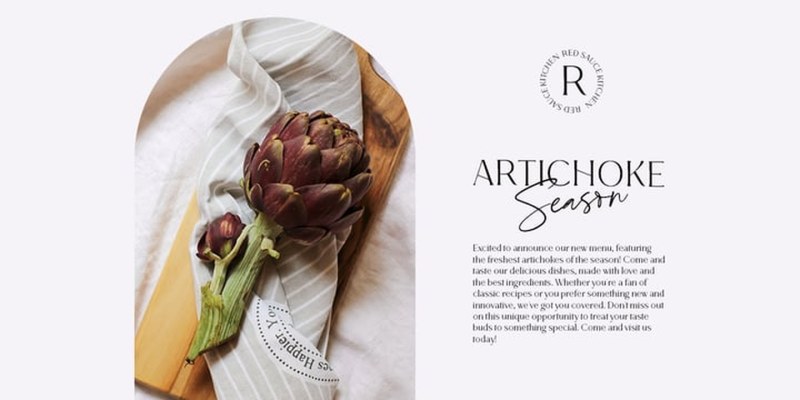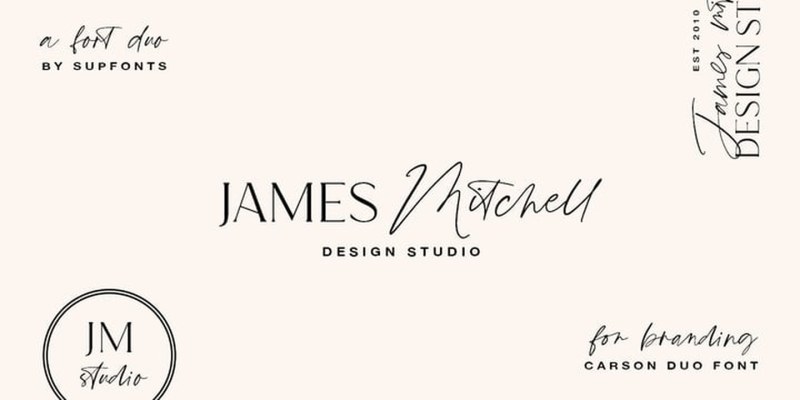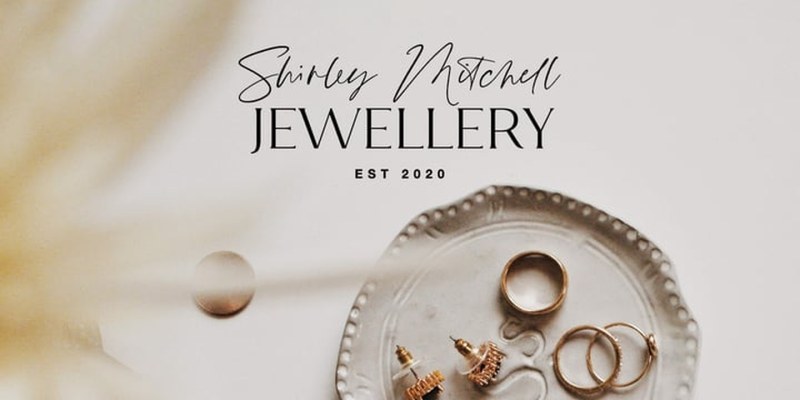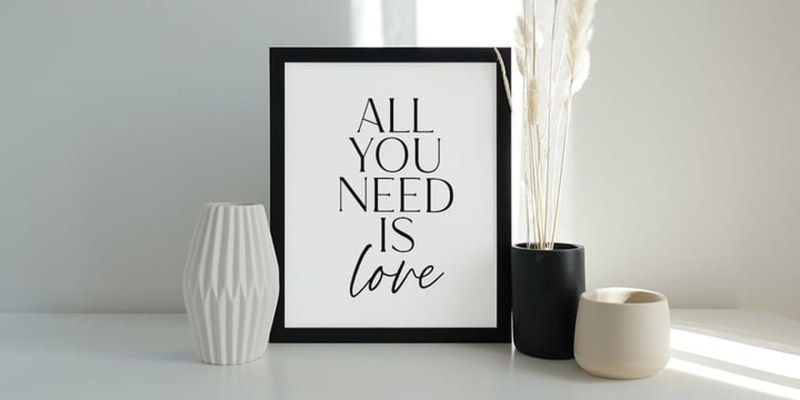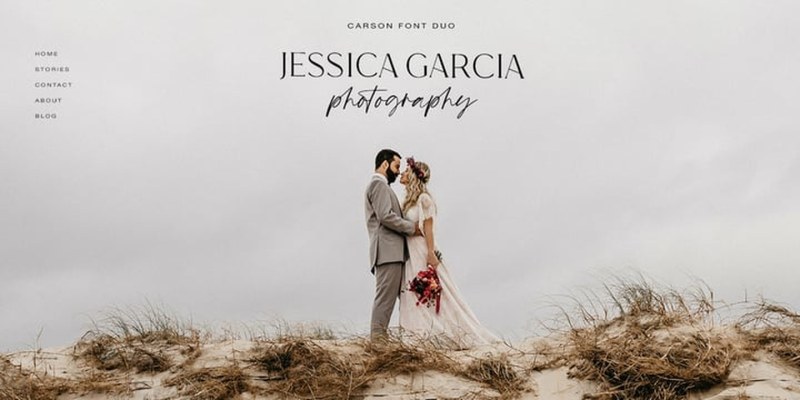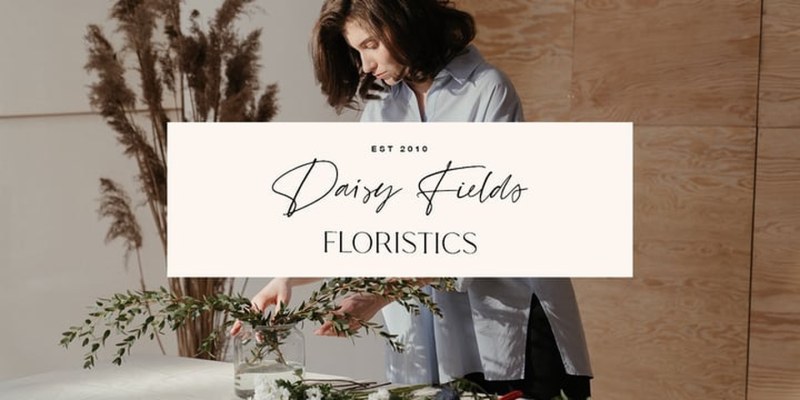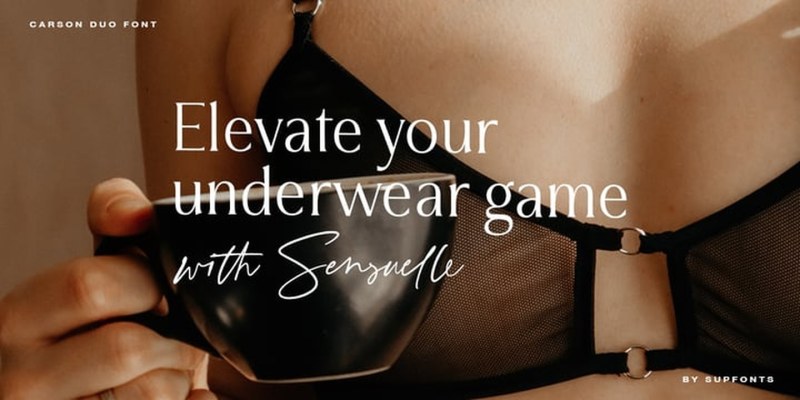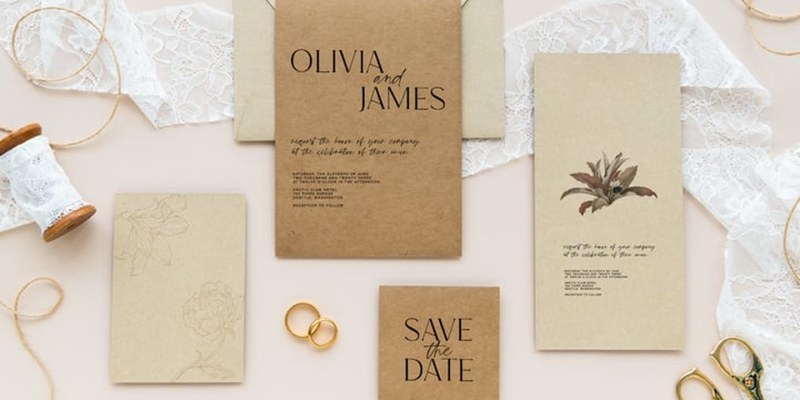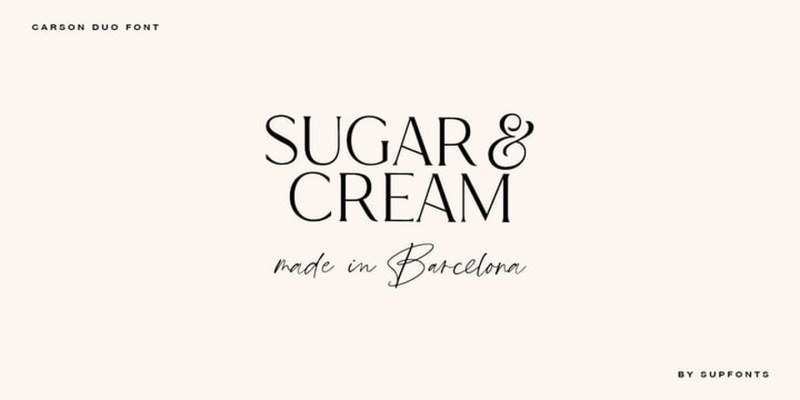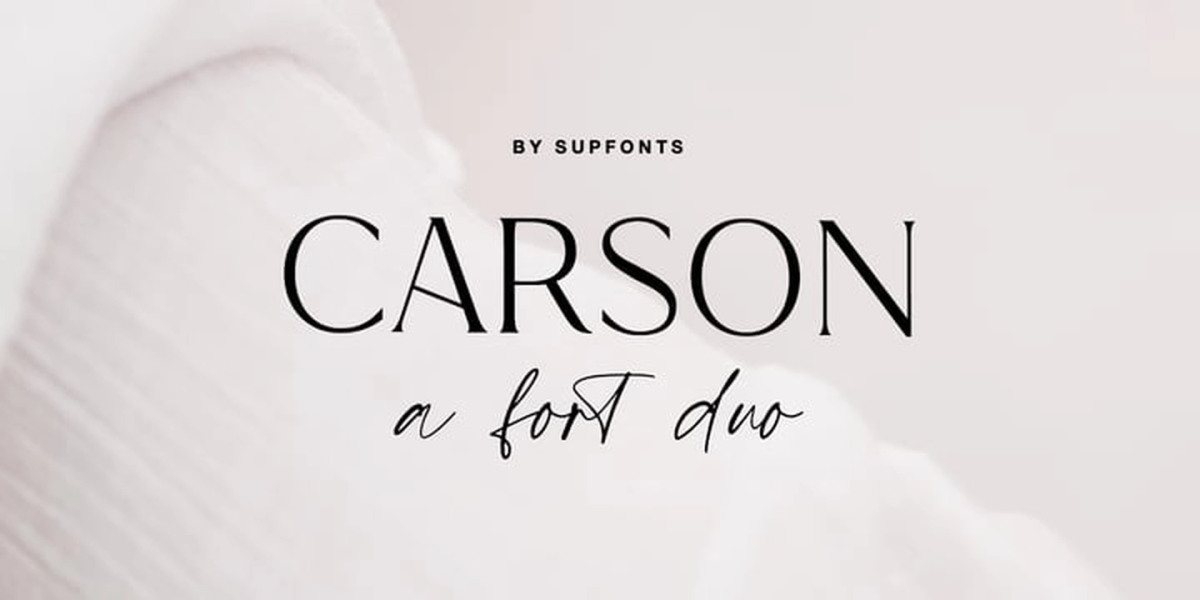
Carson Font Family
Carson Font Duo is a combination of a sophisticated serif typeface and a relaxed handwritten script. It has a contemporary and uncomplicated design that adds an elegant…
Carson Font Duo is a combination of a sophisticated serif typeface and a relaxed handwritten script. It has a contemporary and uncomplicated design that adds an elegant and tidy touch to various projects such as websites, logos, branding, social media quotes, wedding stationery, and more.
Where Carson Font Family works best
Carson Font Family gives long-form text a classic, trustworthy rhythm — ideal for magazine spreads, annual reports and book interiors.
Pair Carson Font Family with generous letter-spacing for wordmarks in fashion, hospitality, wine and jewellery branding.
Use Carson Font Family for slide titles in Keynote, PowerPoint or Google Slides to add authority without looking dated.
What is Carson Font Family good for?
Carson Font Family is a Serif Fonts typeface tagged Branding, Elegant, Handwritten, Modern. It works well for headlines, logos, posters, social media graphics and branding projects that need a distinctive serif fonts look.